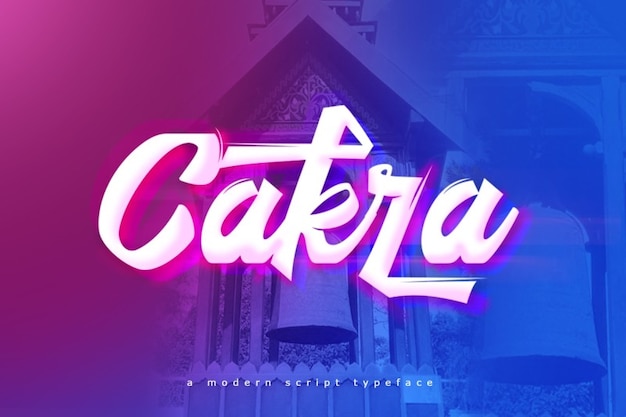
Cakra Font
Cakra, a modern marvel in the world of lettering, is the epitome of cool sophistication. Each stroke is a deliberate dance of contemporary design, effortlessly blending style and substance. This font exudes an urban edge, a visual rhythm that's both sleek and daring. Its letters are not just characters; they are a statement, a testament to the fusion of modernity and artistic flair. Cakra transforms words into a visual journey, making every letter a cool, confident step in the dance of modern typography. Let your words groove with the cool vibes of Cakra!